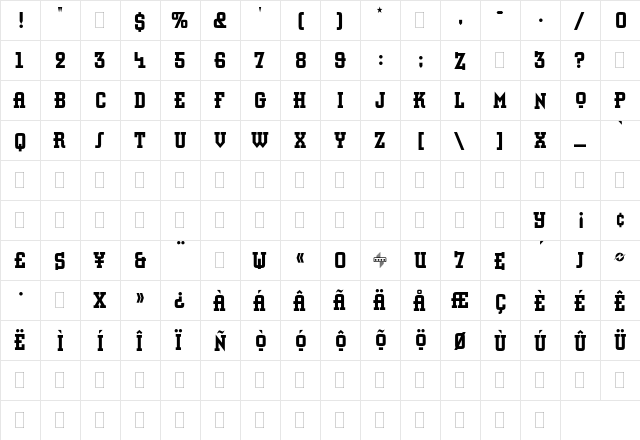
Retro Bold Condensed Plain
Design Context for Retro Bold Condensed Typeface
Retro Bold Condensed wears its vintage influences proudly, with letterforms that recall mid-century signage, classic packaging, and nostalgia-driven design. The heavy weight commands attention and anchors typographic hierarchies.
Font Pairing: Combine Retro Bold Condensed with a simple slab or neutral sans — period-accurate companions reinforce the vintage feel without competing for attention.
Pro Tip: Lean into Retro Bold Condensed's period character by pairing it with aged paper textures, muted colour palettes, and vintage illustration styles.